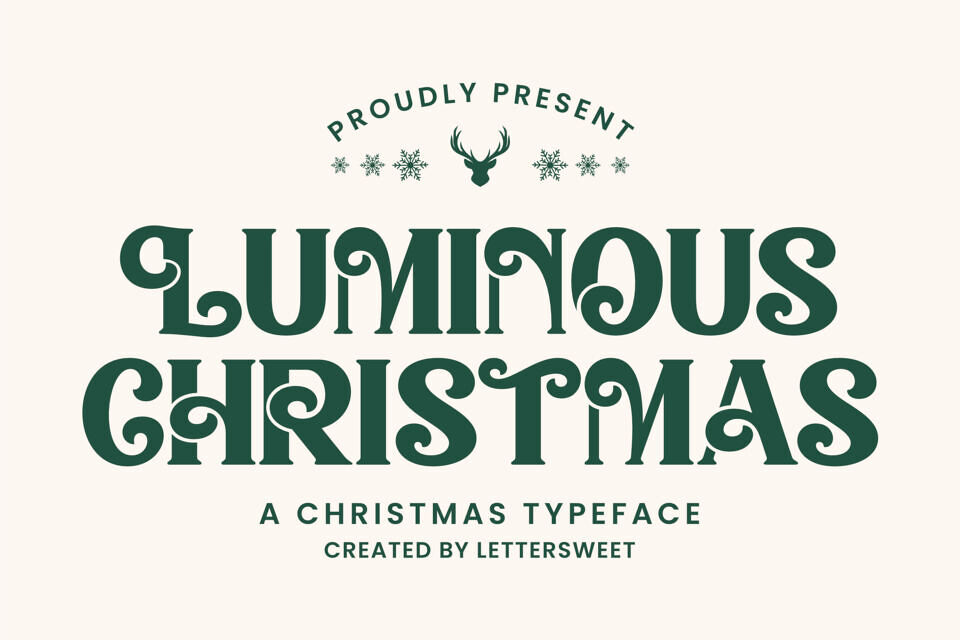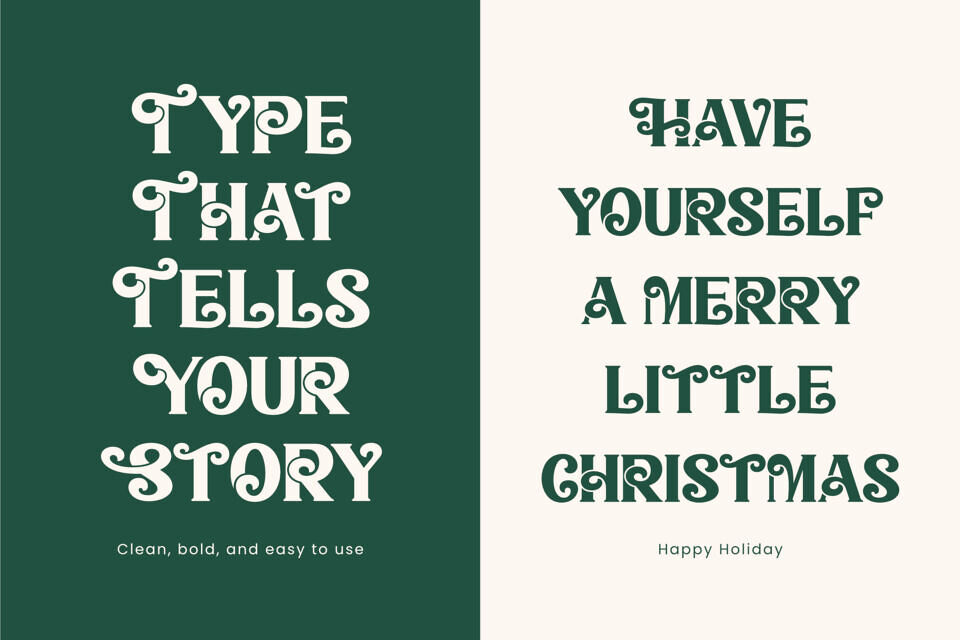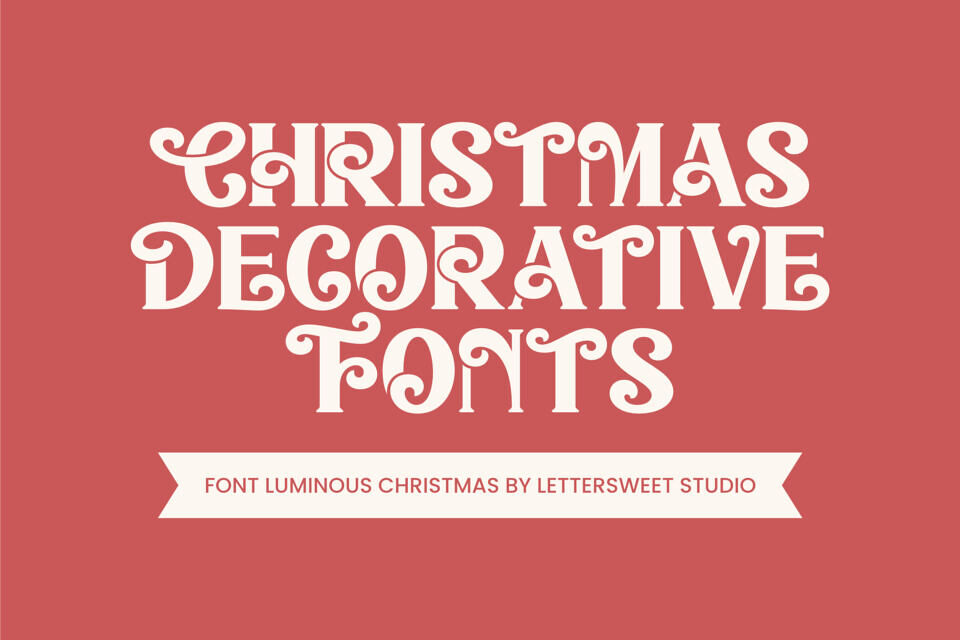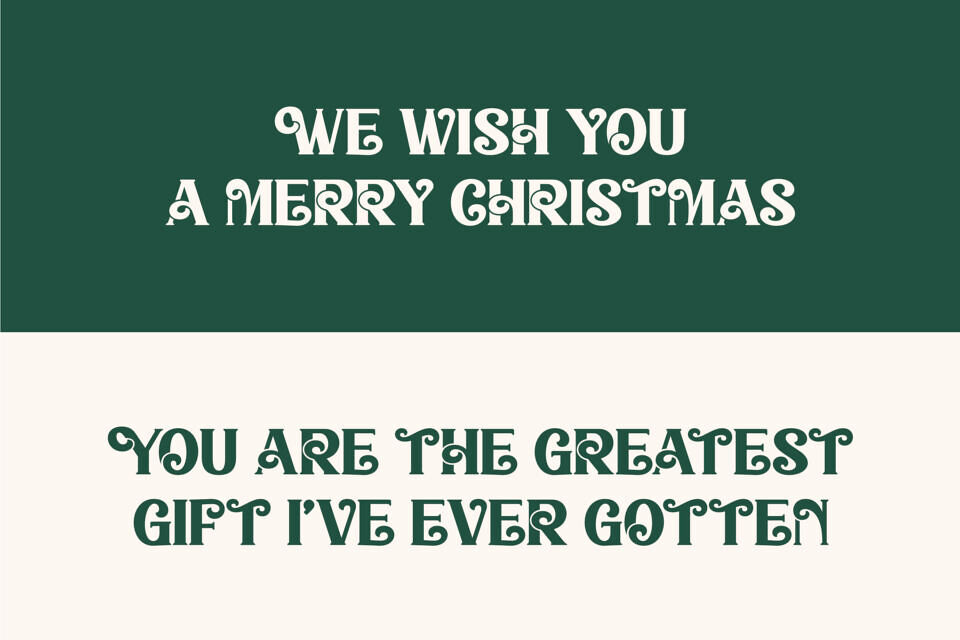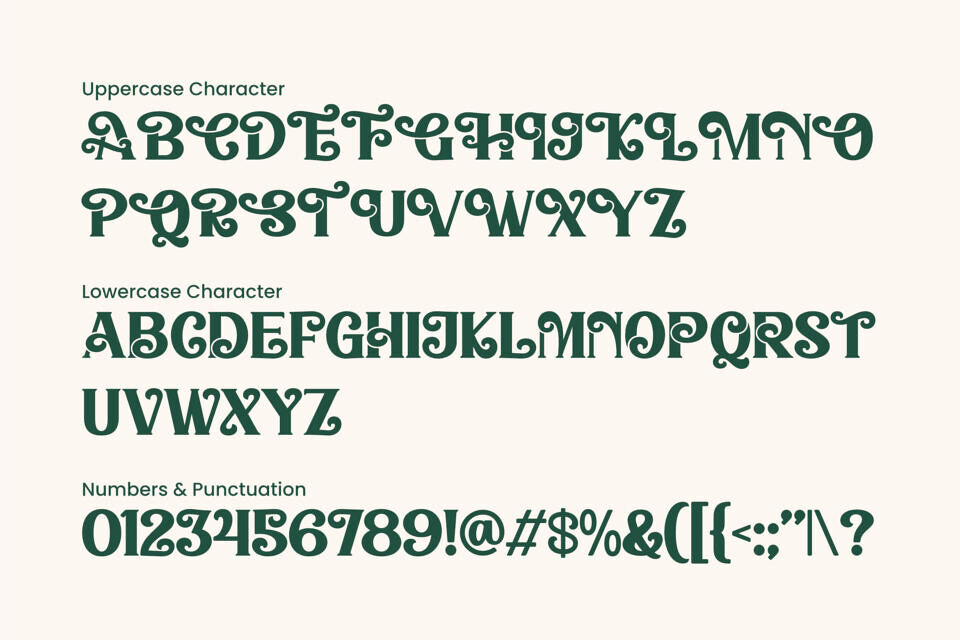
Luminous Christmas is a Christmas display font that feels warm, playful, and elegant at the same time. Its bold letterforms with sweet swirling curves bring a classic vintage–poster vibe, yet stay modern and easy to read. It’s perfect for Christmas projects, winter themes, holiday greetings, and festive designs that need to look premium while still family-friendly.
With its unique and consistent characters, Luminous Christmas makes titles and logos instantly eye-catching. Use this font for Christmas cards, gift box packaging, hamper labels, event posters, year-end sale banners, social media posts, and cover templates on design marketplaces.